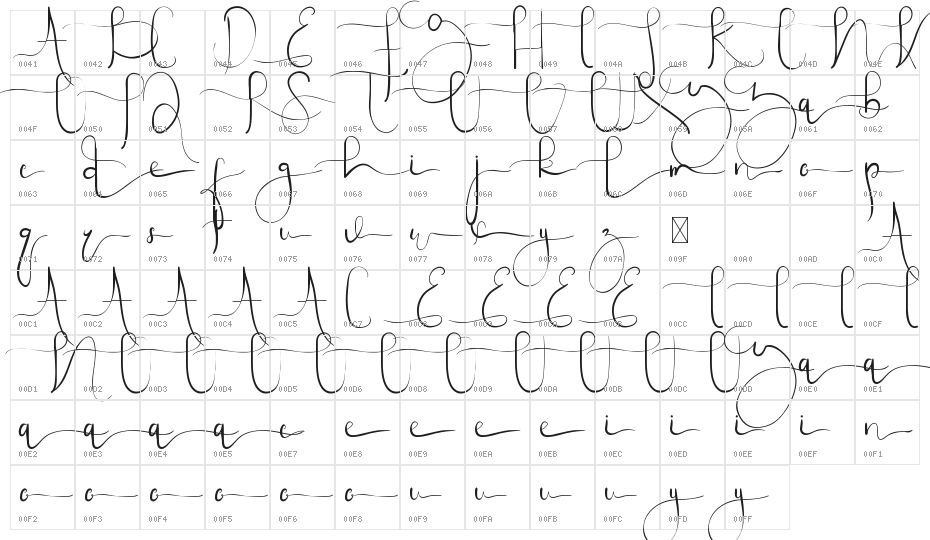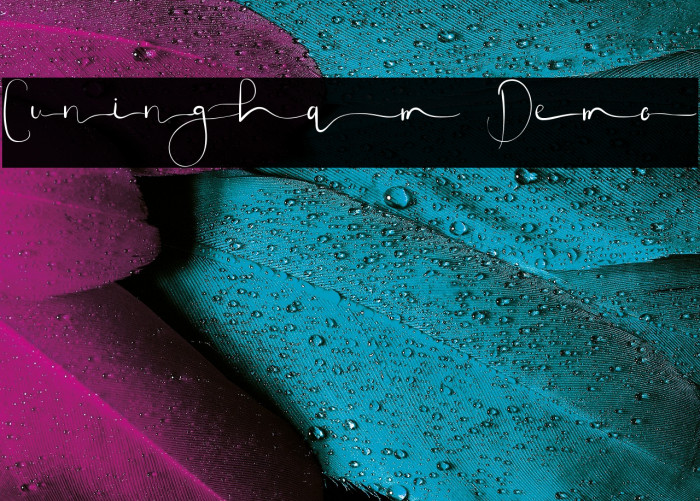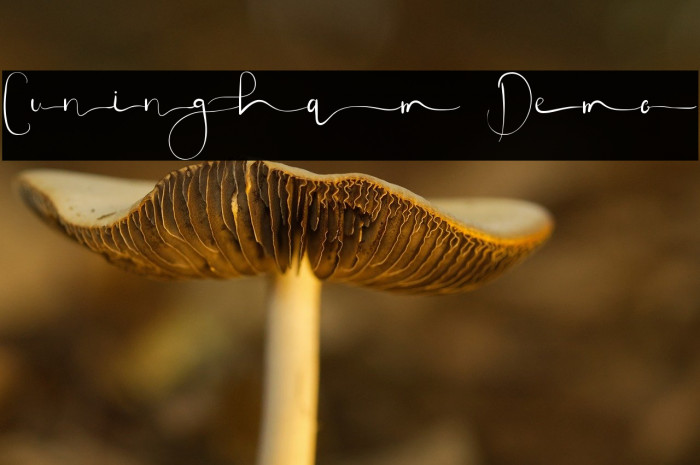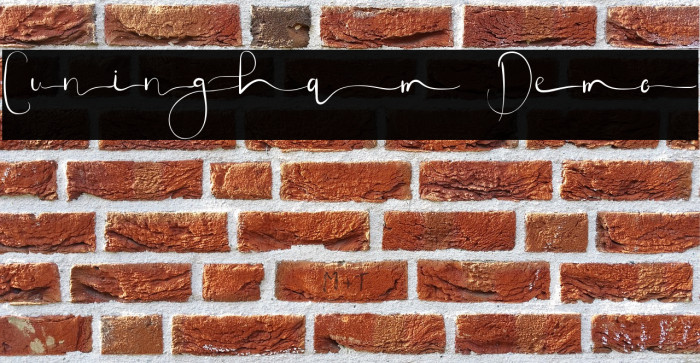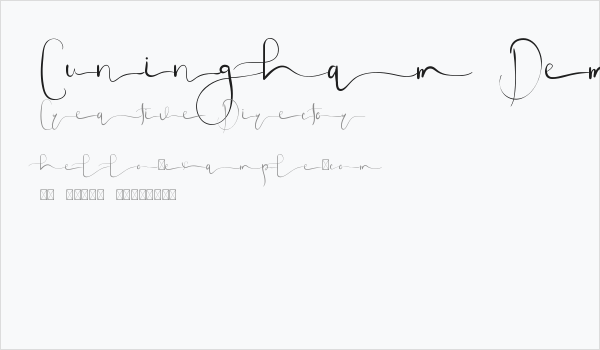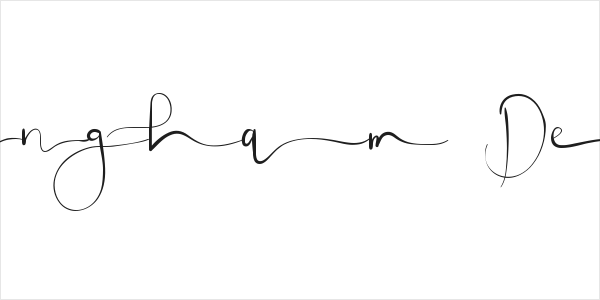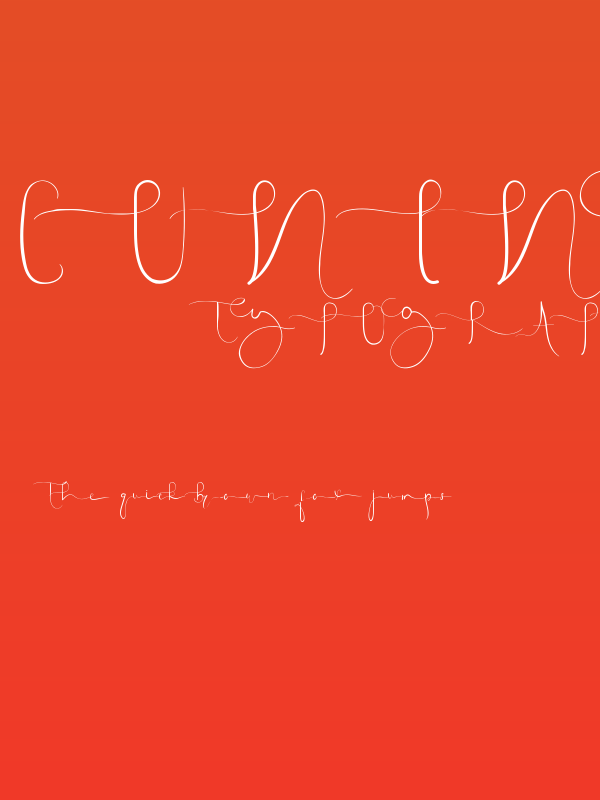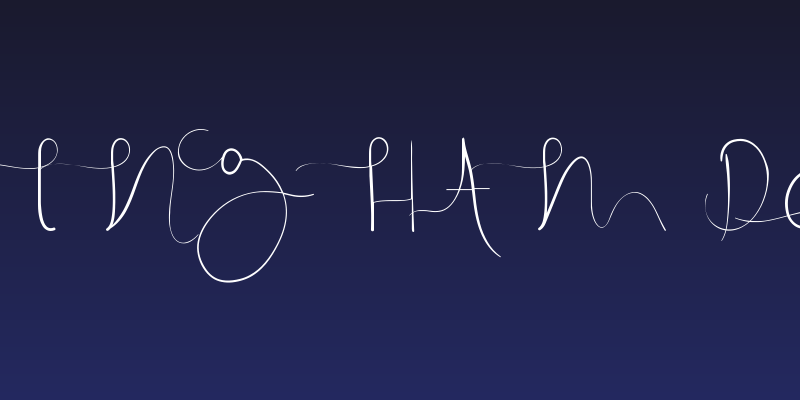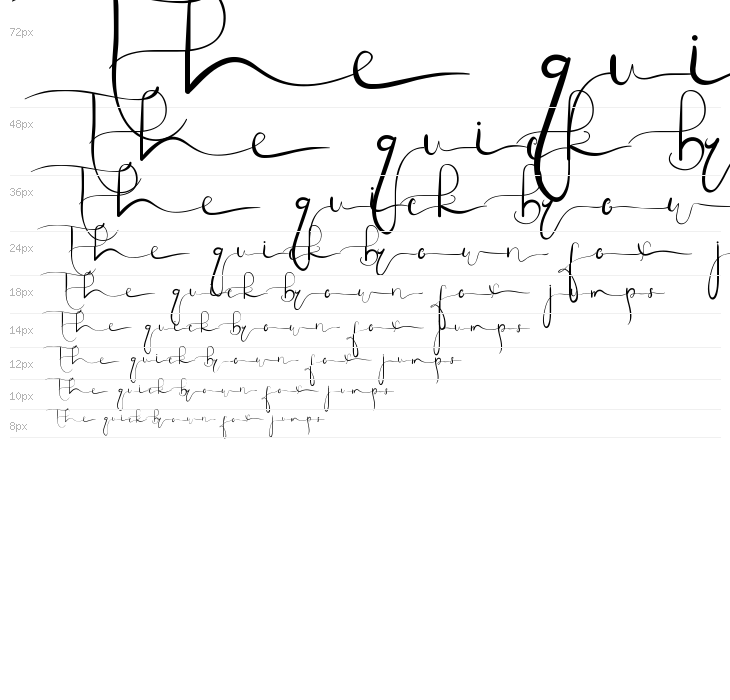
Cuningham Demo Font
Cuningham Demo Description
This font features an elegant, flowing script style with delicate, interconnected letters. The characters are designed with a graceful, handwritten appearance, showcasing intricate loops and swirls that add a touch of sophistication. The uppercase letters are particularly ornate, with extended flourishes that create a sense of movement and fluidity. The lowercase letters maintain a consistent style, with smooth curves and a slightly whimsical feel. This font is ideal for projects that require a personal, artistic touch, such as invitations, greeting cards, or branding materials. The overall design is both modern and timeless, making it versatile for various creative applications.
| Proposed Projects | Ideal for invitations, greeting cards, and artistic branding materials. |